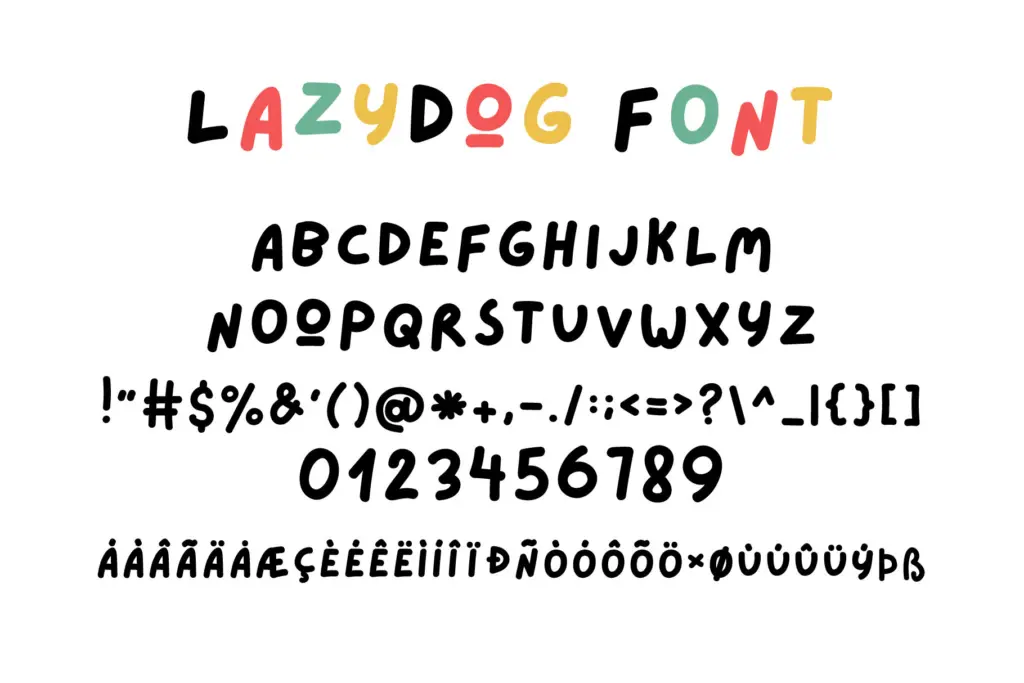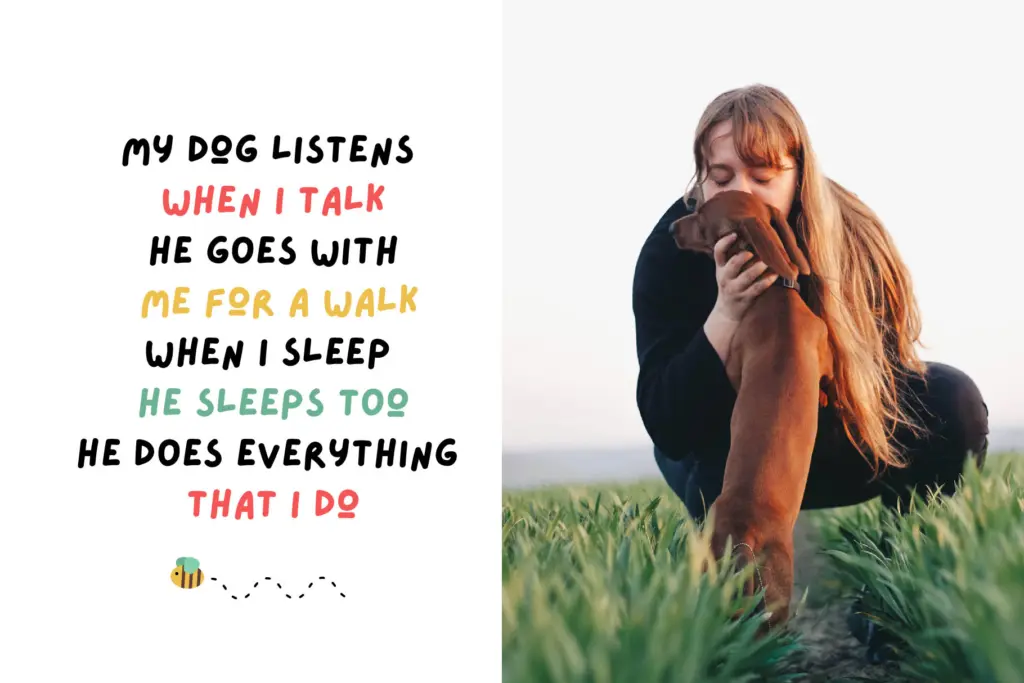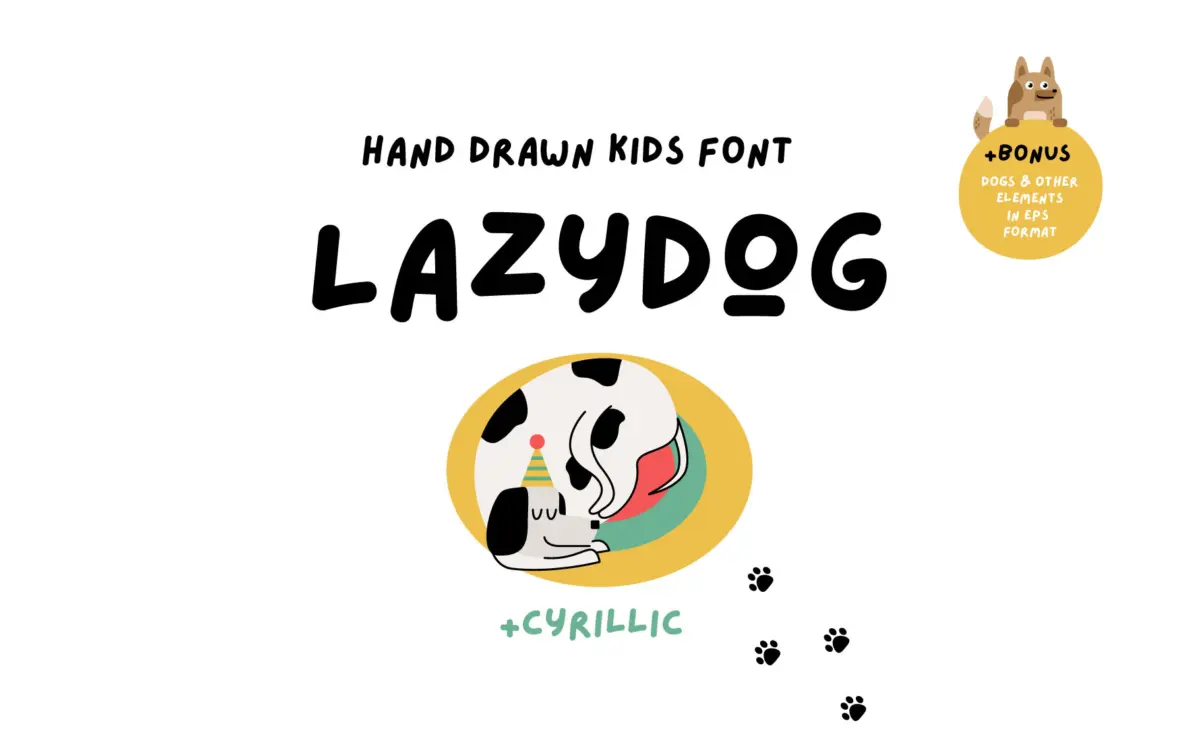
Lazydog is an unapologetically loose handwritten script built for children’s material rather than for anything that needs to look composed. The letters lean and bounce, baselines drift up and down, and the strokes carry the slightly clumsy pressure of a marker held by a kid who hasn’t quite learned to write in a straight line. That’s the point. It doesn’t try to disguise its informality with polish; the charm is in the wobble.
The x-height runs generous and the counters stay open, which keeps the font from collapsing into illegible scribble even with all that irregularity. Ascenders and descenders are short and rounded, terminals are blunt rather than tapered, and there’s none of the flourish or connecting swash you’d see in a more adult calligraphic script. It reads as friendly rather than elegant, which is exactly the register it’s aiming for.
The set covers Latin with Cyrillic support included, and a later update added Vietnamese, so the font has broader language reach than most novelty scripts in this bracket. That’s a genuine plus if you’re working across markets — a lot of kids’ fonts stop at basic Latin and leave you stuck.
Alongside the OTF font file, the package bundles a set of hand-drawn dog illustrations and a small run of stickers, in both EPS and PNG. These aren’t part of the typeface itself, but they’re clearly meant to be used together — the dogs share the same loose, doodled linework as the letterforms, so pairing them in a layout doesn’t feel like mixing styles. Worth knowing there’s no separate bold or alternate weight; this is a single-style font, so any hierarchy in your layout has to come from size, colour, or the accompanying artwork rather than from the type itself.
This is a font for children’s books, birthday invitations, stickers, packaging for toys or baby products, and any greeting card or poster that wants a hand-scrawled, playful tone. It works well at large display sizes — headlines, cover titles, single words on a sticker — where the irregularity in the strokes reads as personality rather than noise.
It’s not a font for body copy or anything that needs to be read at length; the baseline jitter and inconsistent letter widths that make it charming in a title become fatiguing across a paragraph. It also won’t suit any brand or project after clean, contemporary minimalism — Lazydog is deliberately messy, and there’s no way to dial that back without picking a different typeface entirely. For the narrow lane it’s built for — funny, kid-facing, short bursts of text — it does the job without pretending to be more than that.
- Generous x-height and open counters keep the deliberate wobble from tipping into illegibility
- Cyrillic and Vietnamese support broaden its use beyond a single-language novelty font
- Bundled dog illustrations and stickers match the handwritten linework of the typeface itself
- Baseline jitter and inconsistent widths make it unsuitable for body text or long captions
- Single style with no weight variation limits how much hierarchy you can build within the font alone
Lazydog does one job well: cheerful, hand-scrawled type for children's projects, stickers and invitations. It's not built for reading at length or for any brand wanting restraint, but within its playful lane it's consistent and comes with useful bonus artwork.